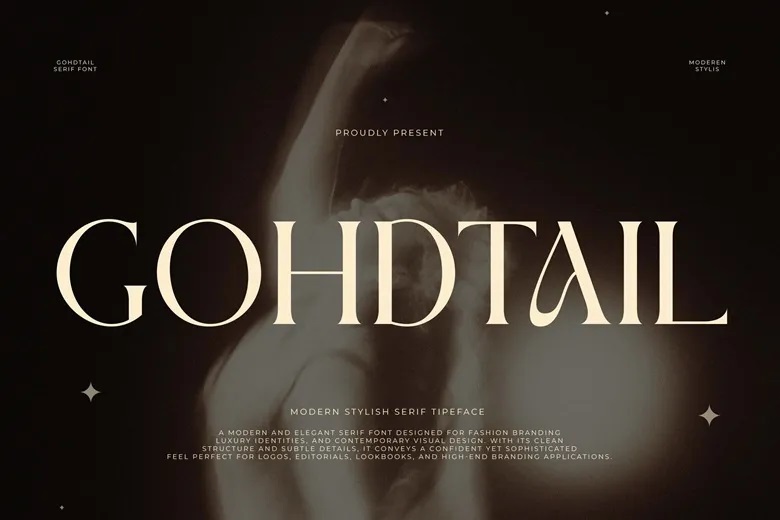
Gohdtail Font
Gohdtail is a modern, stylish serif font that delivers a refined, radiant feel. Its elegant, high-contrast letters have flowing curves and sharp details, blending classic editorial style with a modern, minimal look.
Gohdtail’s bold design and sophisticated style make it a top pick for independent fashion brands, luxury beauty labels, high-end lookbooks, and eye-catching social media headers.
Gohdtail Serif Font